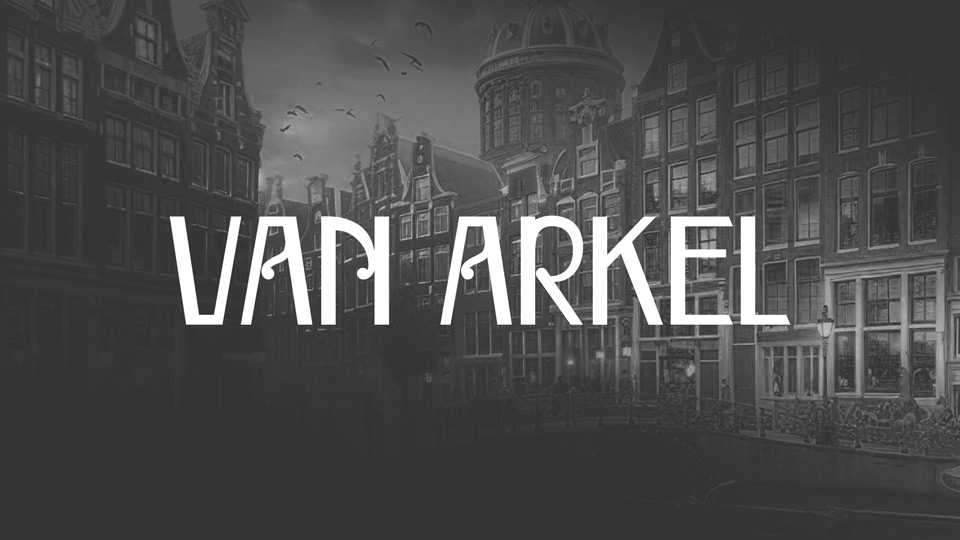
Download Van Arkel font, an elegant art deco font inspired by the signage found throughout the streets of Amsterdam. The font crafted with sleek lines, geometric shapes, and intricate details, evoking the luxurious and sophisticated aesthetic of the art deco era.
Designer: Sasha Pavljenko